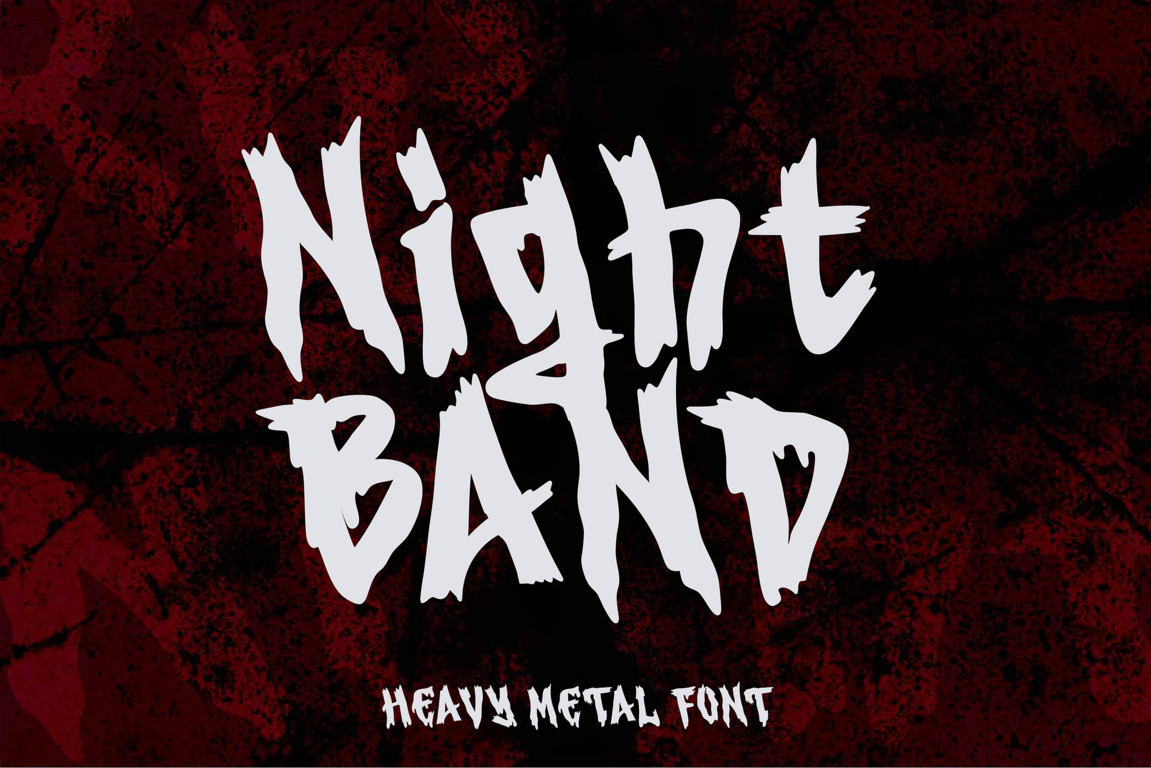
Night Band - Horror Font
NIGHT BAND embodies the essence of spine-chilling horror, presenting a captivating Halloween display font infused with BLOOD AND Crack OF BRANCHES-inspired terror. Its Crack, dripping letters aesthetics create an ideal choice for instilling a sense of horror and dark whimsy into your Halloween-themed designs. Whether crafting sinister party invitations, ominous haunted house posters, or unsettling social media graphics, to impart an unforgettable, spine-tingling twist to your text. Embrace the supernatural and allow NIGHT BAND to permeate your designs with a delightfully ghoulish atmosphere that lingers in the memory.
-Upper/lowercase, numbers.